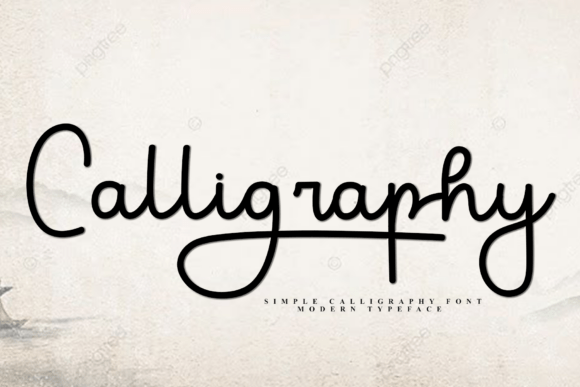
The Art of Beautiful Typography: Exploring the Calligraphy Font
Have you ever sat at your desk, surrounded by blank sheets of paper and a blank mind, waiting for that one spark of creativity to strike? For many designers, the thrill of creating something new and beautiful is what drives them to push the boundaries of their craft. It’s in these moments that the perfect font can make all the difference, transporting your design from bland to grand. And for those seeking to add a touch of elegance and sophistication, the Calligraphy Font is an ideal choice.
The Calligraphy Font is designed to evoke the feeling of handwritten script, with its soft, flowing strokes and unique character. This versatile font is perfect for a wide range of design projects, from wedding invitations to graphic novels, and is compatible with various applications, including Windows and open-source platforms.
As a designer, you know that the right font can elevate your work from ordinary to extraordinary. The Calligraphy Font is a valuable addition to any design arsenal, offering a natural and eye-catching style that is sure to captivate your audience.
Key Features of Calligraphy Font
- Unique Characteristics: Features intricate, hand-drawn lettering with flourishes and swashes, adding an elegant touch to any design.
Calligraphy Font Review
Overall, I’m impressed with the Calligraphy Font, but as with any design, it has its strengths and weaknesses. Here’s my honest review.
- The font’s elegant and sophisticated feel is perfect for invitations, weddings, and other formal events.
- The wide range of customization options allows for a high level of personalization.
- The font’s script-like appearance adds a touch of luxury and refinement to any design.
- The font can be difficult to read at smaller font sizes, which may limit its use in body text.
- The complexity of the font’s design can make it challenging to pair with other fonts.
- The font’s ornate appearance may not be suitable for all design styles or audiences.
Overall, I think the Calligraphy Font is a beautiful and versatile font that can add a touch of elegance to any design. However, it’s essential to consider its limitations and use it judiciously to ensure the best results.
Practical Application Guide for Calligraphy Font
Calligraphy font is commonly used for:
- Special occasion cards and gifts.
- Business branding and marketing materials.
- Artistic and creative projects.
Tips for Getting the Most Out of Calligraphy Font
To get the most out of calligraphy font, try the following:
- Experiment with different font sizes and styles.
- Combine calligraphy font with other fonts for a unique look.
- Use bold or italic text to add emphasis.
- Combine the calligraphy font with watercolor illustrations or hand-drawn elements to add a personal touch.
- Use a mix of uppercase and lowercase letters to create a sense of movement and flow.
- Pair the calligraphy font with a soft, pastel color palette to create a dreamy and ethereal atmosphere.
- Use gold or silver foil accents to add a touch of luxury and sophistication.
- Combine the calligraphy font with natural elements such as flowers or greenery to create a whimsical and outdoor-inspired design.
- Combine the calligraphy font with geometric shapes or abstract elements to add a sense of dynamism and movement.